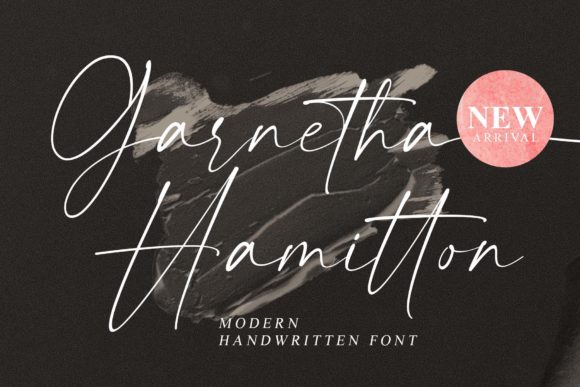
Step into a world of captivating calligraphy with the Garnetha Hamitton Font, a breathtaking handwritten typeface that dances off the page with its elegant swashes and refined curves. Born from the creative vision of MJB Letters, Garnetha Hamitton is more than just a font; it's an artistic masterpiece that will elevate your designs to new heights.
Experience the allure of a classic script font reimagined for the digital age. Garnetha Hamitton effortlessly blends the timeless charm of calligraphy with a modern, contemporary twist. Its meticulously crafted characters exude sophistication and grace, making it the perfect choice for adding a touch of elegance to your projects.
Unleash your creativity with Garnetha Hamitton's extensive character set, featuring a full range of uppercase and lowercase letters, numerals, punctuation, and a treasure trove of ligatures and swashes. Explore endless possibilities as you craft captivating logos, stunning wedding invitations, enchanting social media posts, or heartfelt personal letters.
Garnetha Hamitton is not just a font; it's an emotion. Its graceful strokes evoke a sense of timeless elegance, while its contemporary flair adds a touch of freshness and vibrancy. Let your designs speak volumes with the enchanting allure of Garnetha Hamitton.